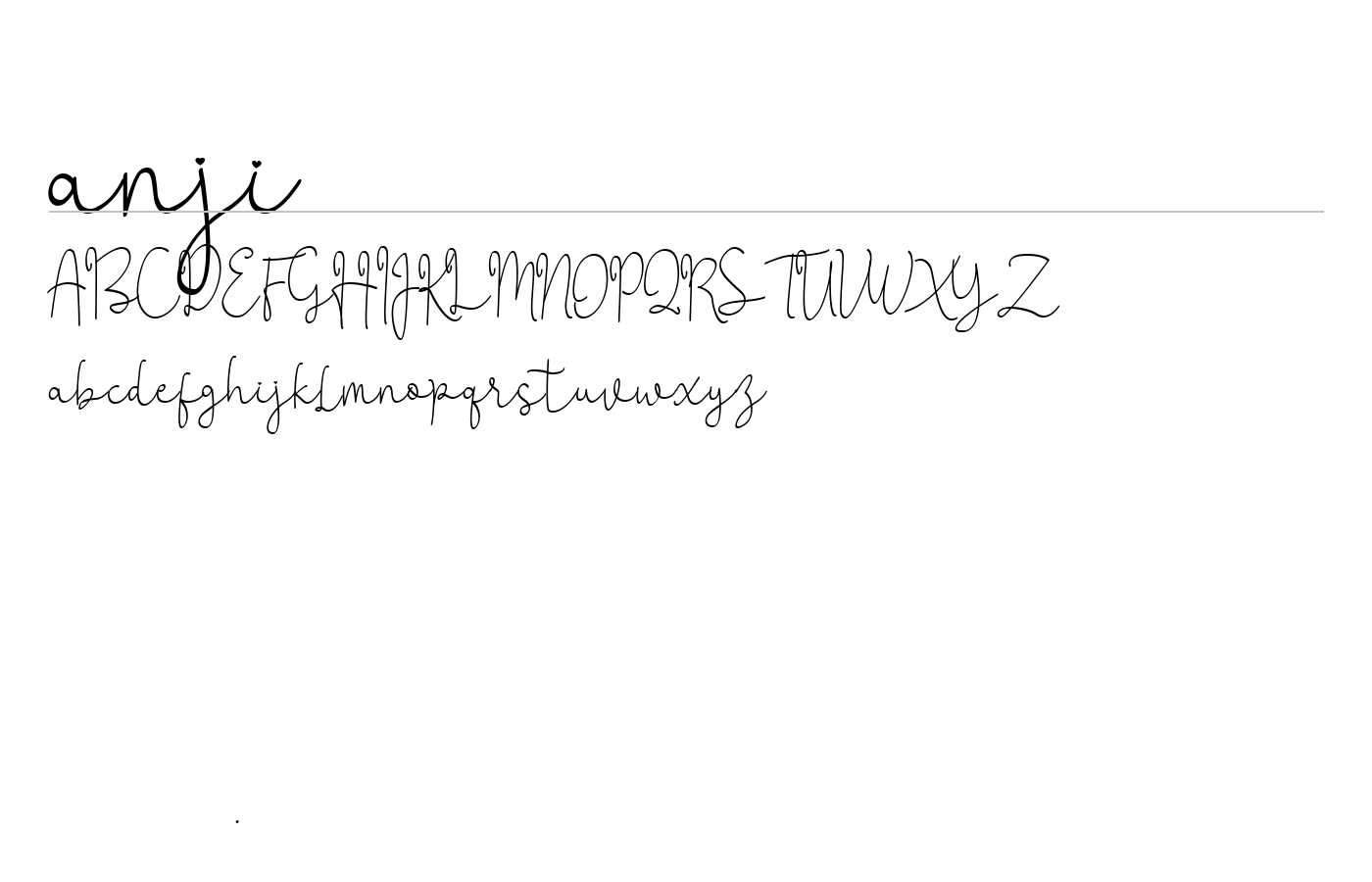
Anji Font is a delicate, handwritten script with thin, flowing strokes that create an elegant and whimsical feel. Its tall, narrow letterforms and playful loops give it a charming, personal touch perfect for invitations, greeting cards, and creative branding that seeks a light, artistic vibe. This font excels in designs where a gentle, handcrafted look is desired, adding warmth and personality.
anji Font
About anji Font